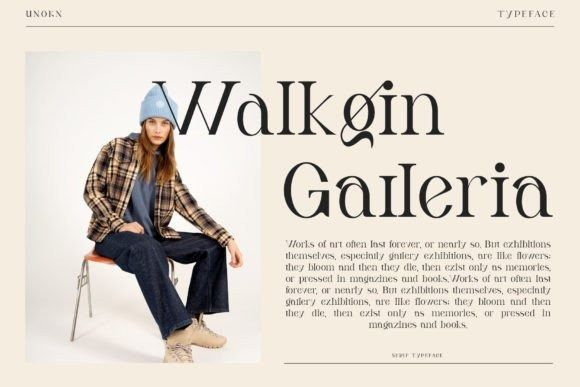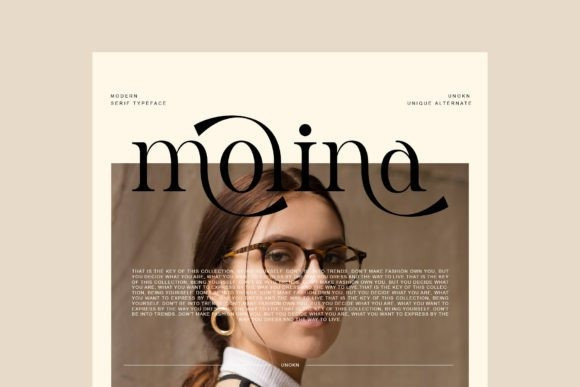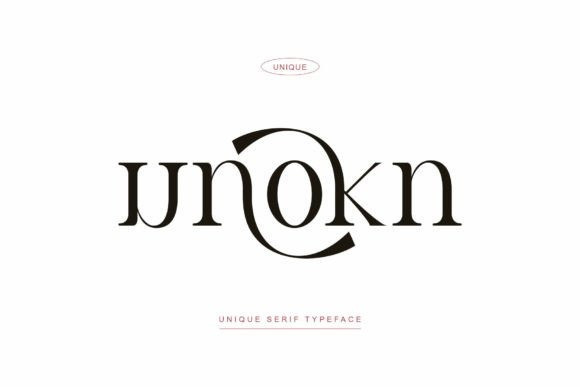
Unokn Font
Unokn Serif Font is an elegant and stylish serif font. Contemporary and fresh, it is perfect for any design you wish to create. Add it to your creative projects and make them outstanding! Unokn is PUA encoded which means you can access all the glyphs and ligatures with ease!